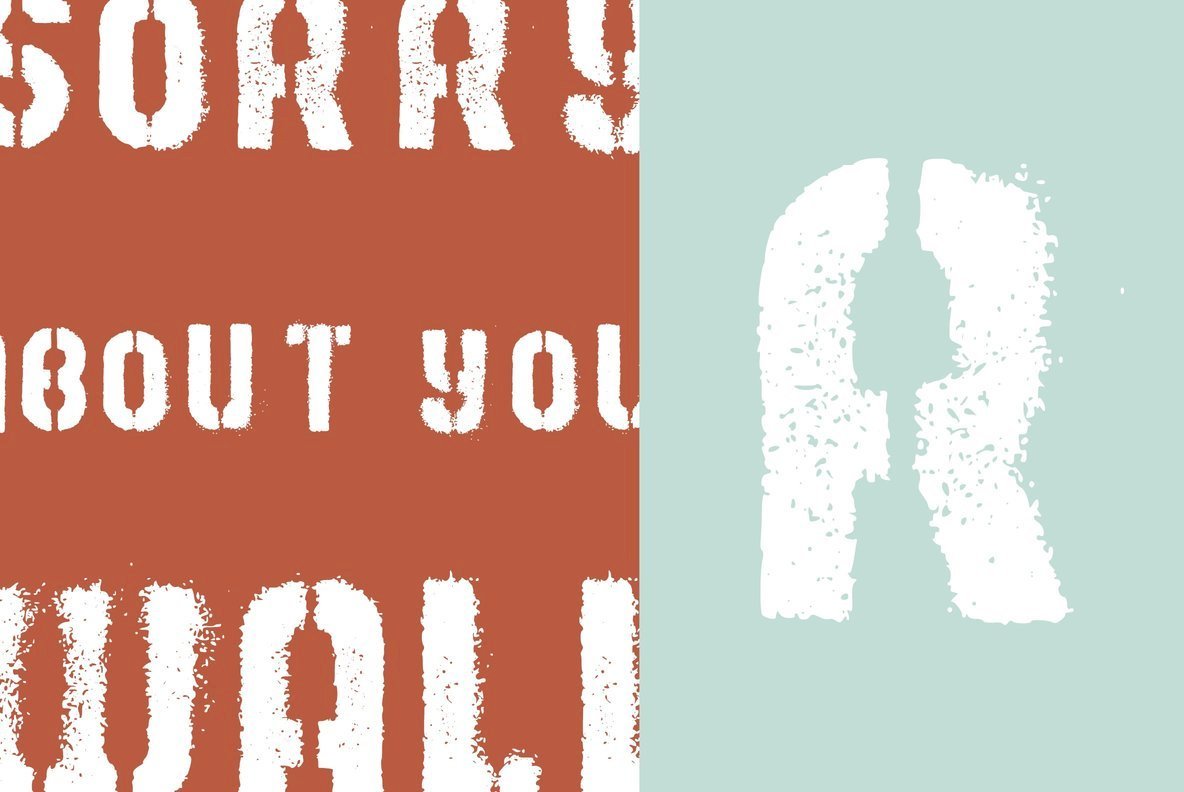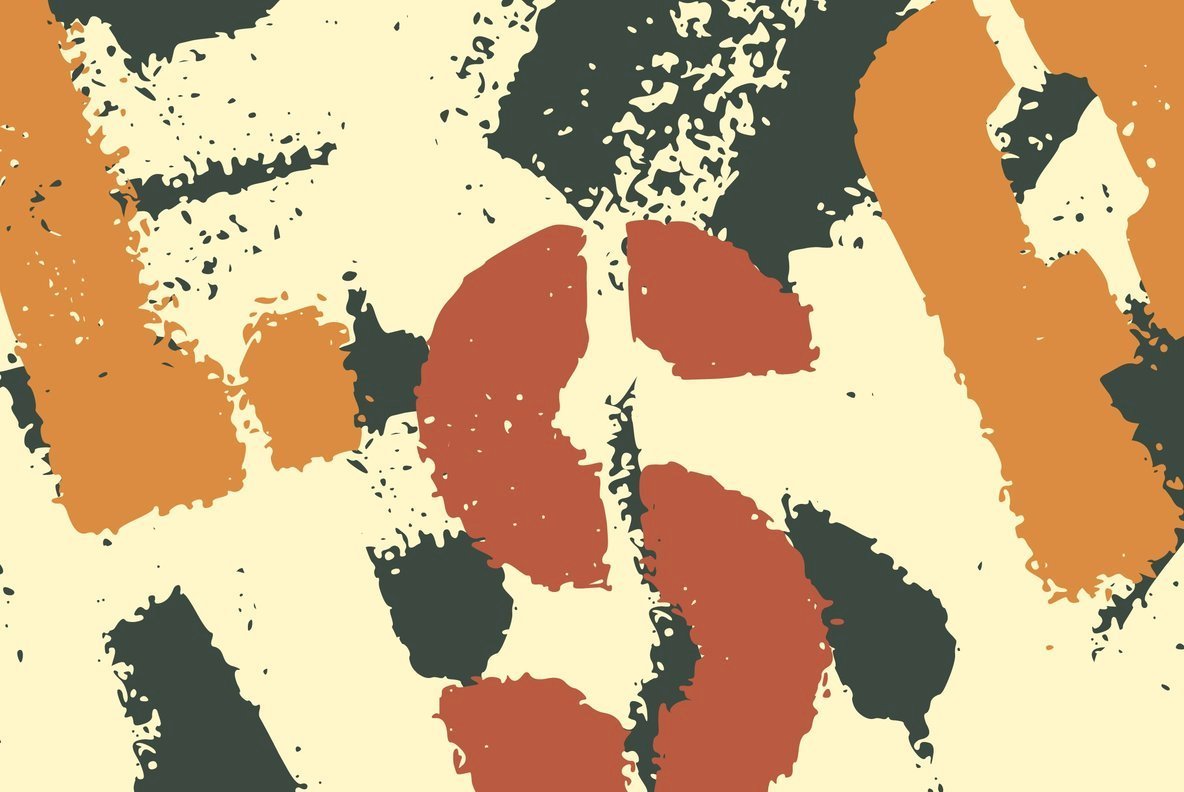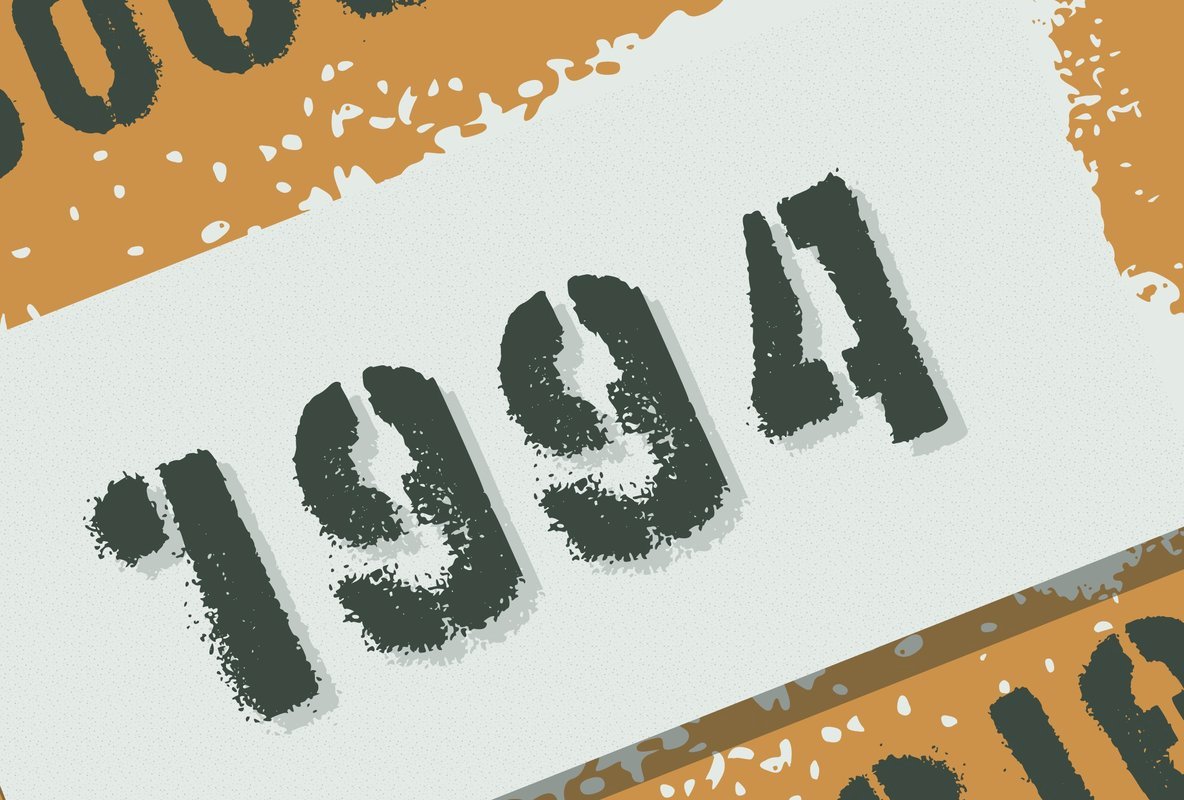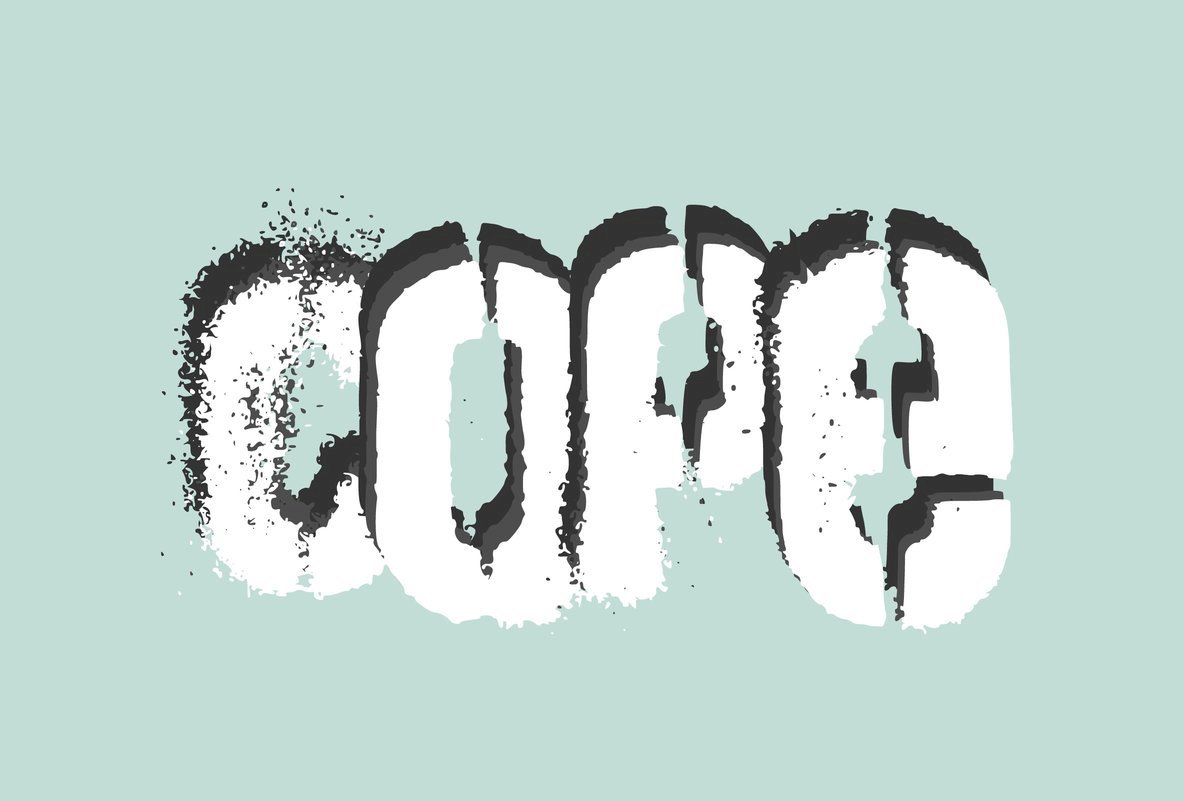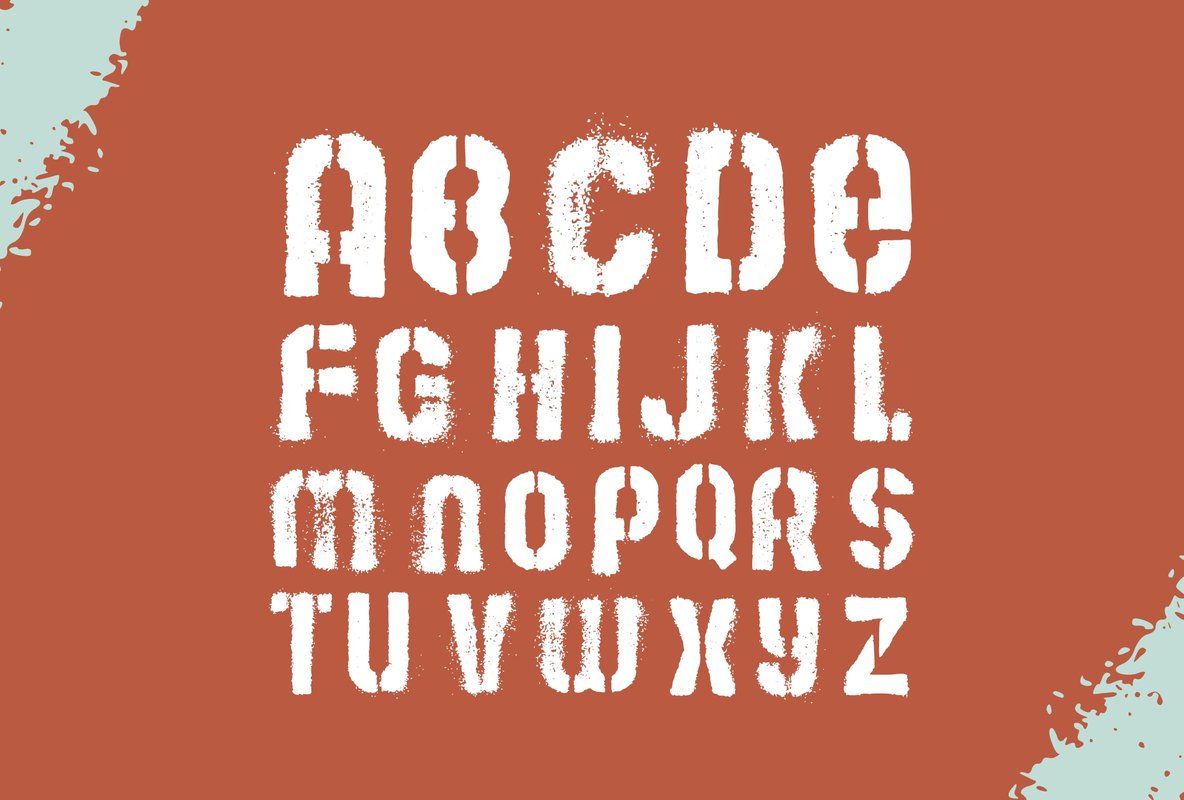
Bams Stencil Font
Bams Stencil
Get a message out there with this cool stencil already cut and sprayed for you, no need of gloves or even a spray can. If you looking to create an impact or a message which society needs to see then using a font that you can really feel! For budding activities and hardcore protesters on either side of the political divide.
This font was created by Benjamin A Melville and features a full upper and lower case alphabet including 0-9 and some punctuation, please see glyphs list for all characters you will be able to work with.